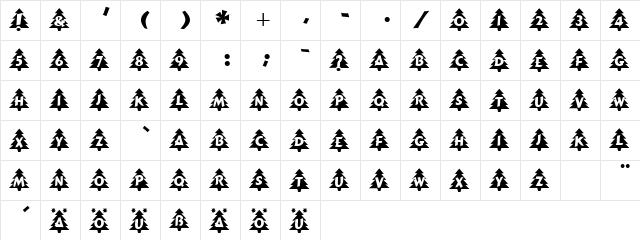
Tanne Normal
Design Context for Tanne Typeface
Tanne is a composed and adaptable typeface that performs quietly and consistently across a wide range of design contexts.